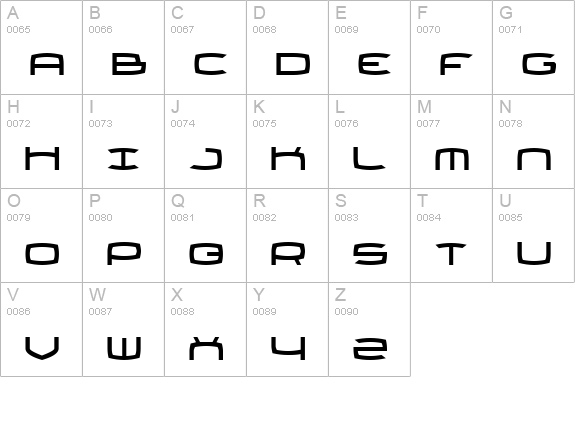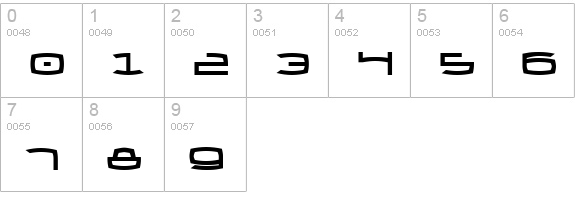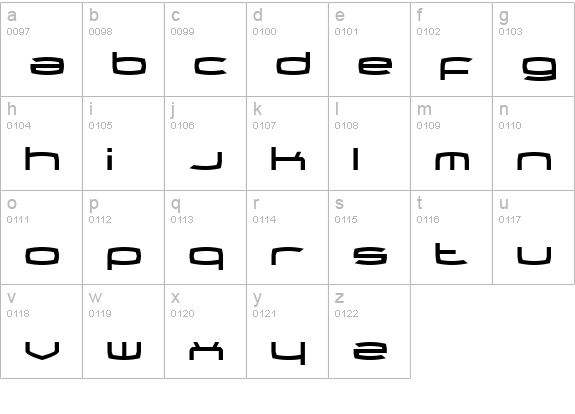
Introducing Thundergod, a powerful and electrifying font that commands attention with its bold and striking design. This font is the perfect embodiment of strength and authority, making it an ideal choice for designs that need to make a bold statement. With Thundergod, every letter is meticulously crafted to exude power and dominance. Each stroke is infused with energy, creating a sense of dynamic movement that captivates the viewer's gaze. The letters are meticulously designed to ensure legibility while maintaining a unique and captivating appearance. One of the most remarkable features of Thundergod is that it is available free of charge. Yes, you read that right - this incredible font is freely available to download at FontsMarket.com. Now, you can add a touch of thunderous power to your designs without having to break the bank. Whether you're designing a poster for a rock concert, creating a logo for a sports team, or crafting a powerful headline for a magazine cover, Thundergod is the font that will make your design stand out from the crowd. Its bold presence and commanding aura will leave a lasting impression on anyone who encounters it. So, why wait? Download Thundergod today from FontsMarket.com and unleash the power of this electrifying font in your design projects. With Thundergod, you can make a statement that resonates with strength, authority, and undeniable impact. Get ready to take your designs to the next level with Thundergod - the font that truly embodies the thunderous force of nature.